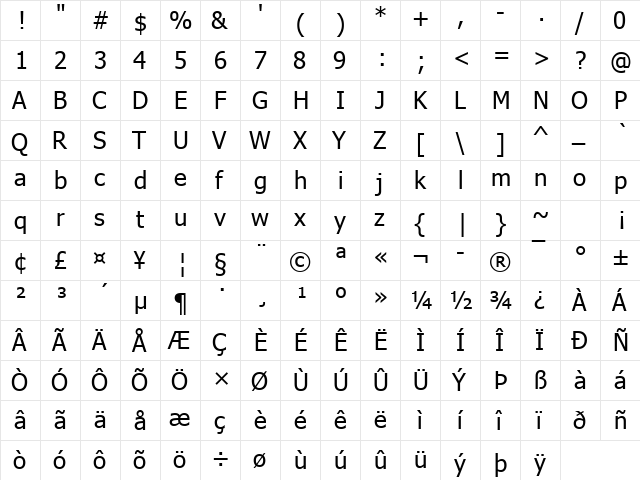
InstallFont Regular Font Preview
InstallFont Regular
InstallFont Regular Font Details
Design Context for InstallFont Typeface
InstallFont takes a measured approach to typography — its balanced proportions and neutral character make it a reliable workhorse for both digital and print work.